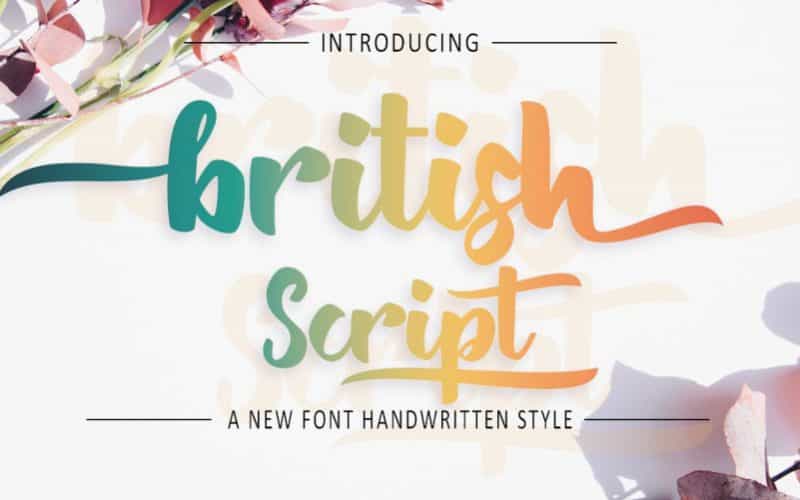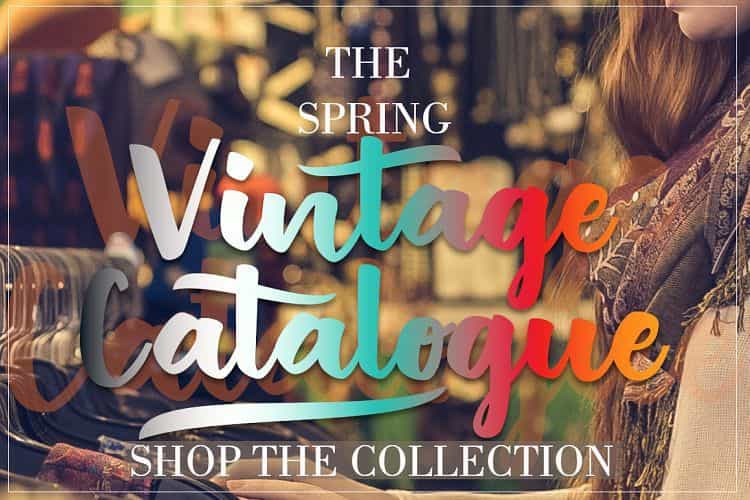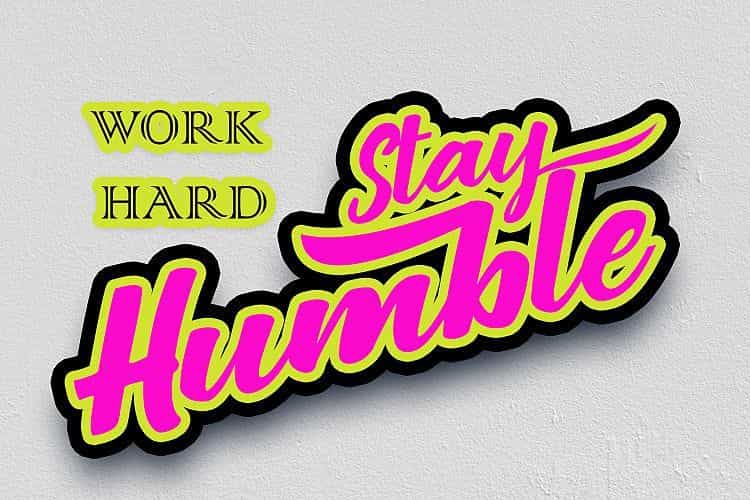
British Script is a hand brushed script with dry brush texture and Bouncy baseline It has a Perfect matching marker font and extremely useful set of bonus swash. Perfect for logos, handwritten sayings, product label, header, poster, products, social media & greeting cards.